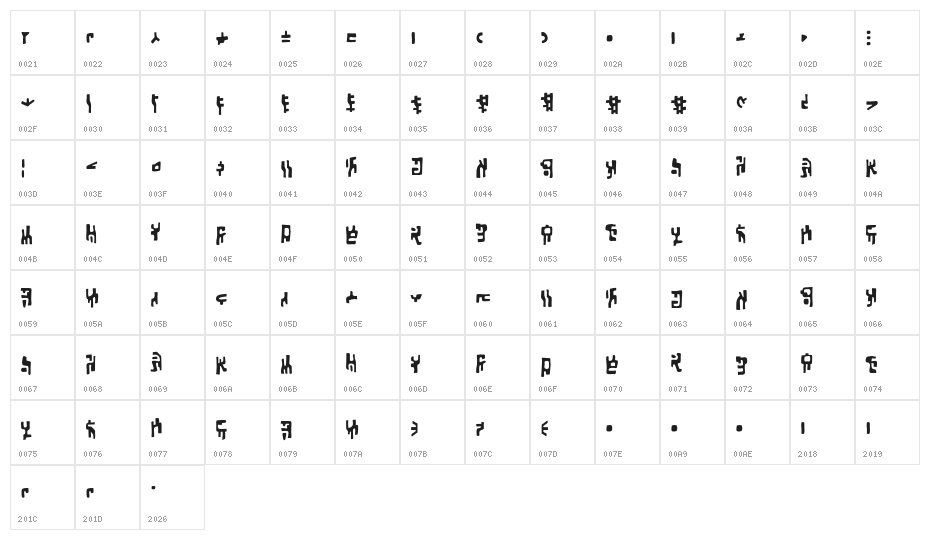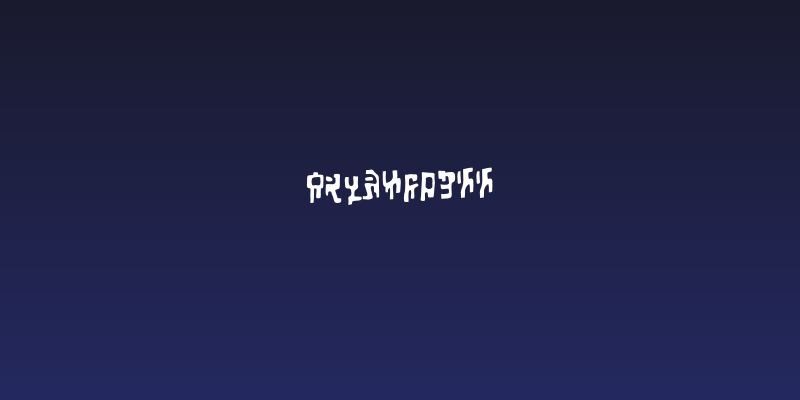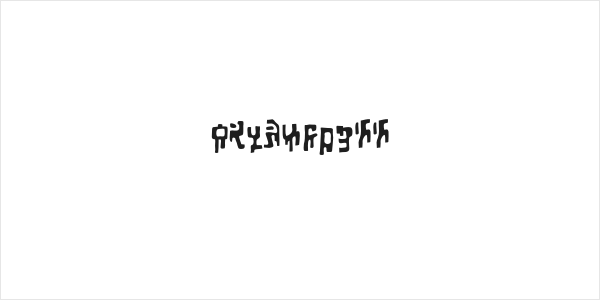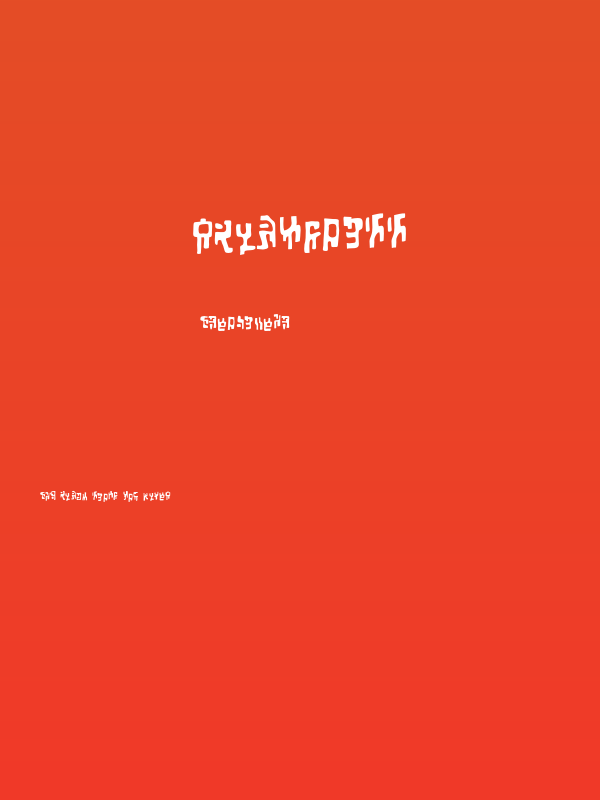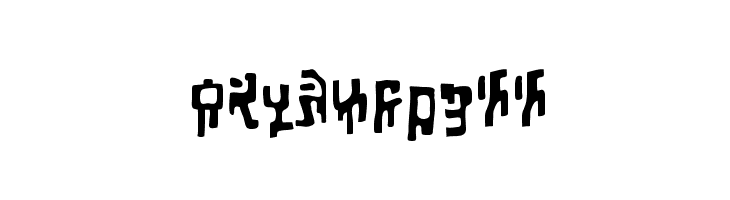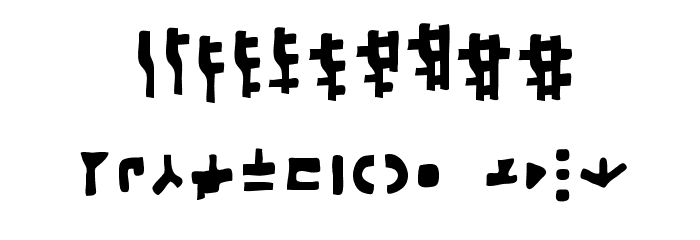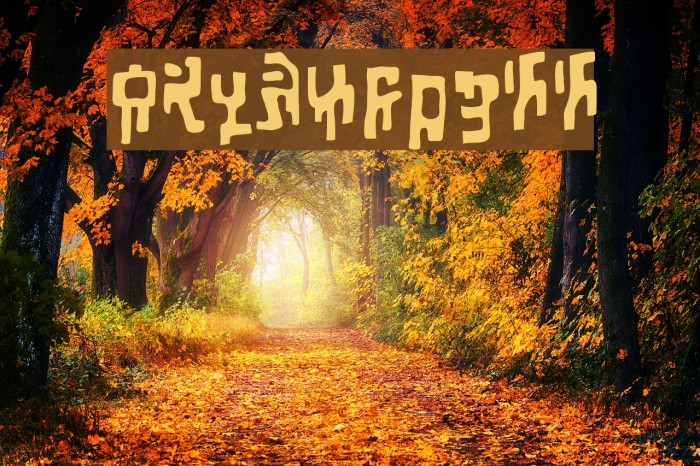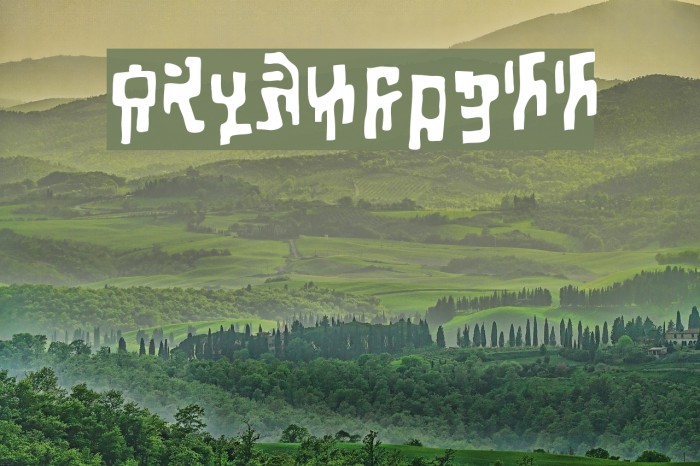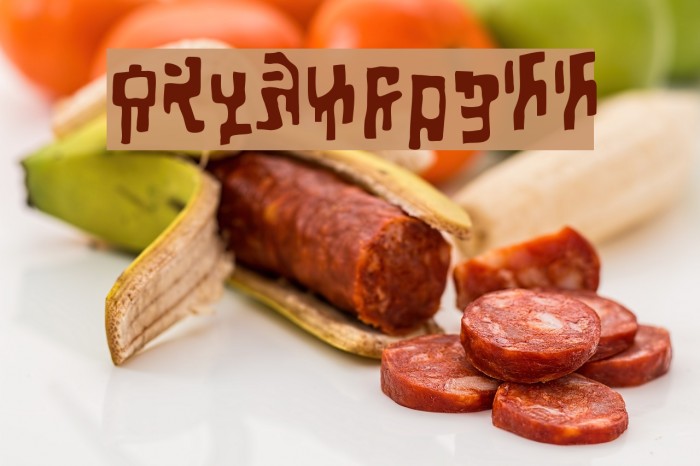
SquiznorBB Font
SquiznorBB Description
This font features a highly stylized and abstract design, with characters that appear as if they are crafted from bold, geometric shapes. The letters are thick and have a somewhat tribal or ancient script-like appearance, with each character exhibiting unique angles and curves that give the font a distinct and artistic flair. The overall aesthetic is bold and eye-catching, making it suitable for projects that require a strong visual impact. The characters are evenly spaced, and the font maintains a consistent weight throughout, contributing to its cohesive look.